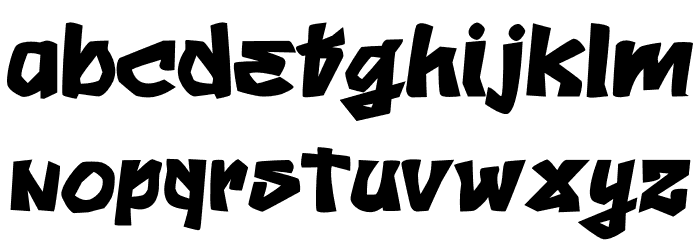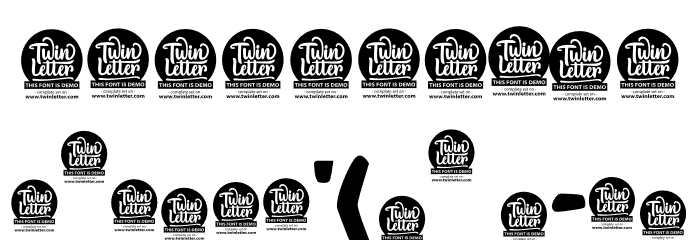
REACH YOU PERSONAL USE Font
This font features a bold and dynamic style with a graffiti-like appearance. The characters are angular and edgy, giving off a rebellious and urban vibe. The uppercase and lowercase letters maintain a consistent thickness, contributing to a cohesive look. The font's unique design elements, such as sharp edges and irregular shapes, make it stand out as a display typeface. The numbers and special characters follow the same stylistic approach, ensuring uniformity across all glyphs.
A bold, graffiti-inspired font with angular and edgy characters.
- Proposed Projects: Ideal for street art projects, urban-themed posters, music album covers, and edgy branding materials.
- Overall Style: Urban, Graffiti, Bold